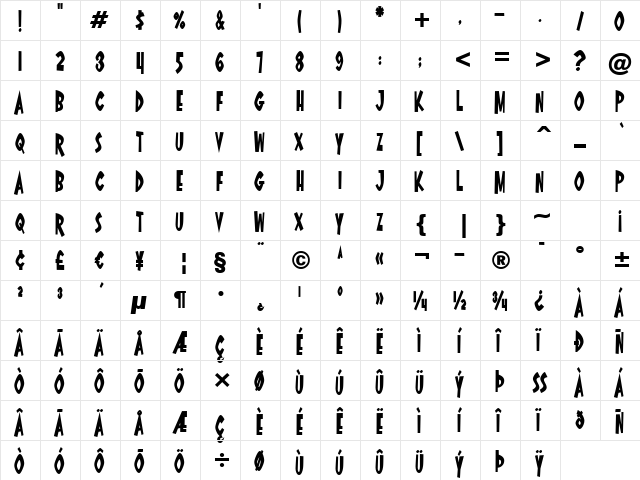
Oyster Bar BTN Cond Bold Font Preview
Design Context for Oyster Bar BTN Cond Typeface
Oyster Bar BTN Cond offers clean, dependable letterforms without strong stylistic allegiance, making it a practical choice for designers who need flexibility. Its bold stroke weight gives it real presence on the page. The condensed width makes it efficient for tight spaces without sacrificing legibility.